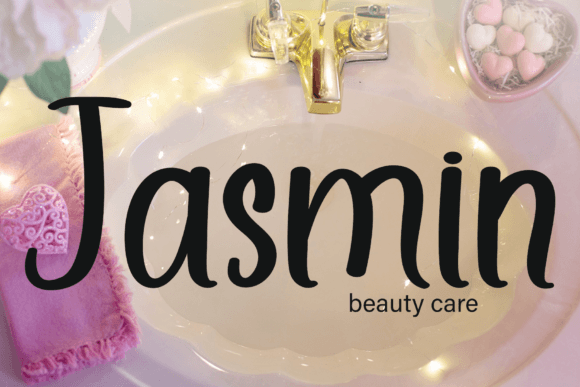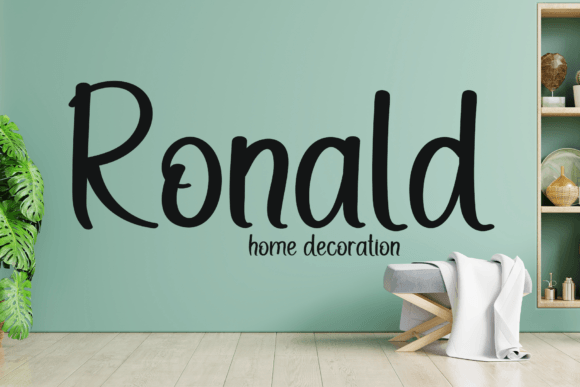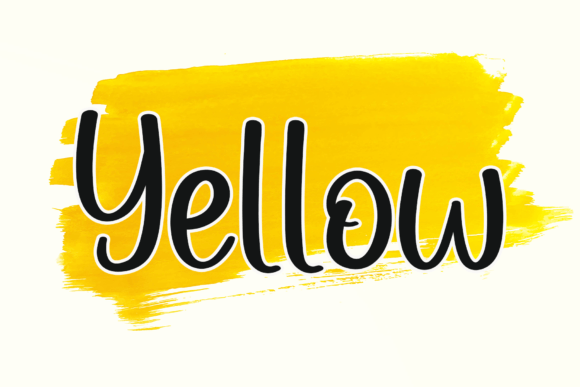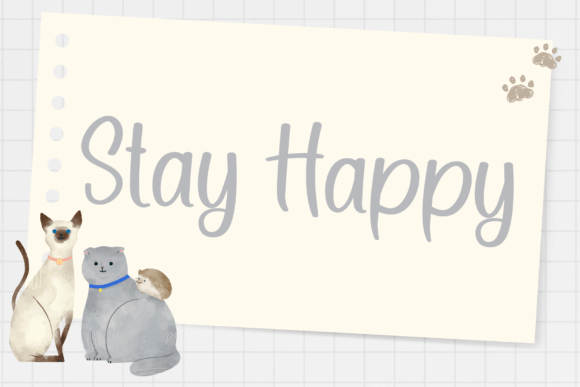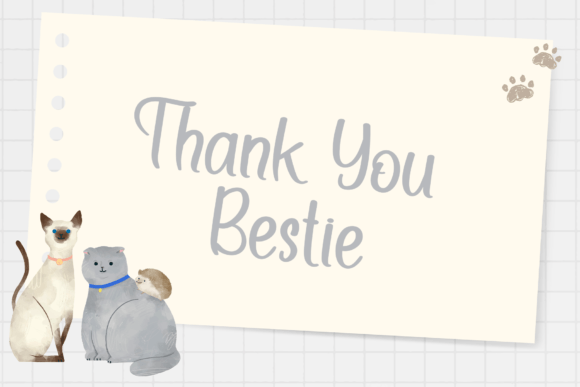
About Pink Shadow Font
Pink Shadow is a simple handwritten font. This versatile font has a wide spectrum of applications ranging from greeting cards to headlines and is guaranteed to add a simple and natural feel to your next project!